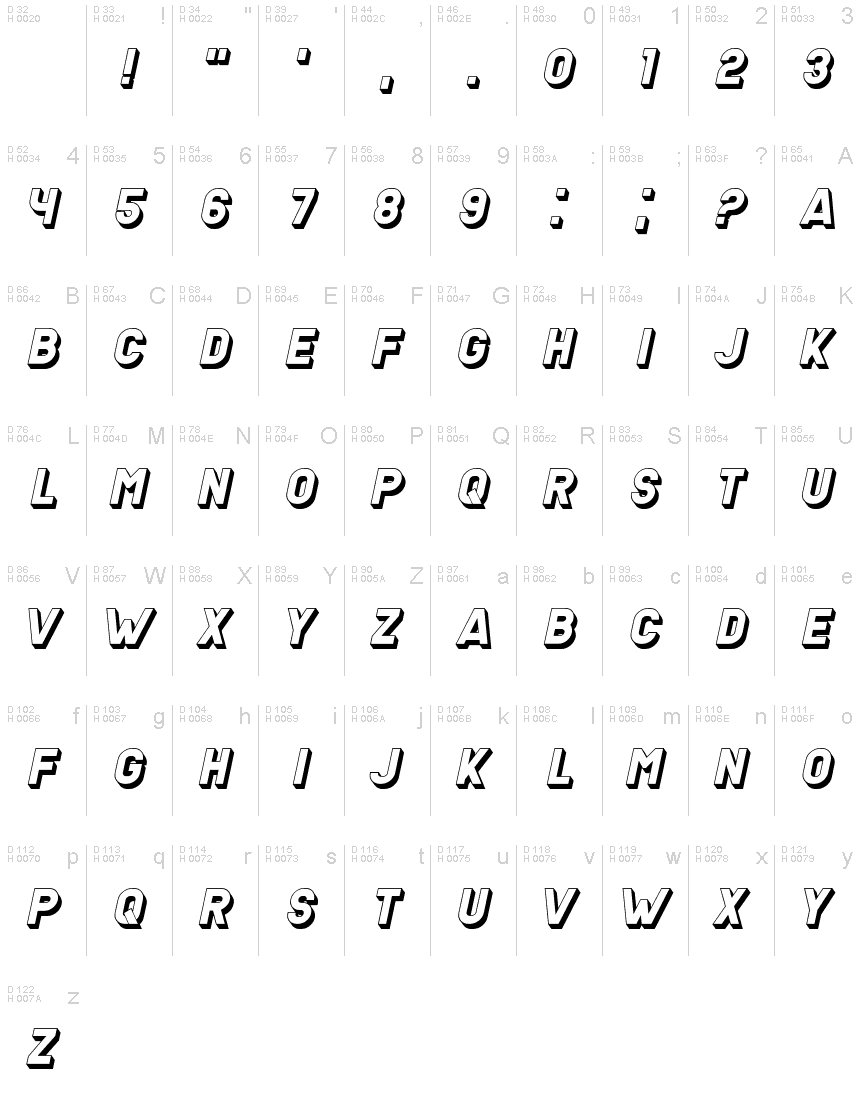
Antology Regular
Antology, designed by the creative Vladimir Nikolic, stands out as a semi-bold, semi-condensed 3D display font that commands attention. Its aesthetic combines a sense of depth and structure with an approachable boldness that makes it versatile for various design endeavors. The font's three-dimensional quality adds a tangible feel to any text, making it pop off the page or screen.
The semi-condensed width of Antology ensures that it makes a strong impact without overwhelming the space it occupies. Perfect for headers, logos, and posters where a touch of depth is desired, Antology can bring an element of sophistication to branding projects or editorial designs.
With its unique style and visually captivating form, Antology bridges the gap between traditional typography and contemporary design trends. This font is not just about being seen—it’s about creating an experience that resonates with audiences across different creative platforms.